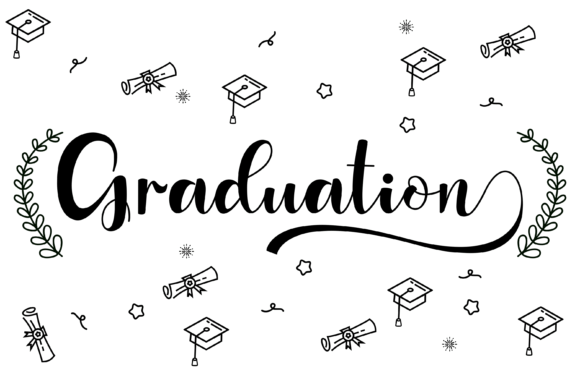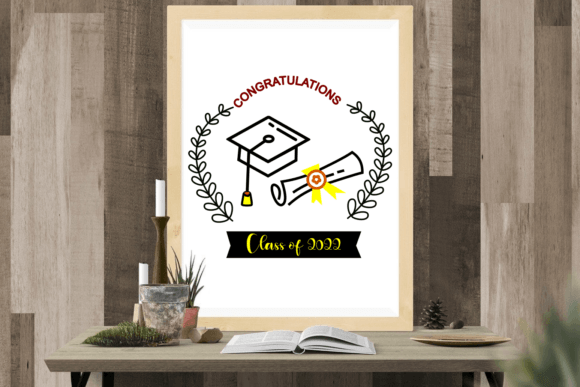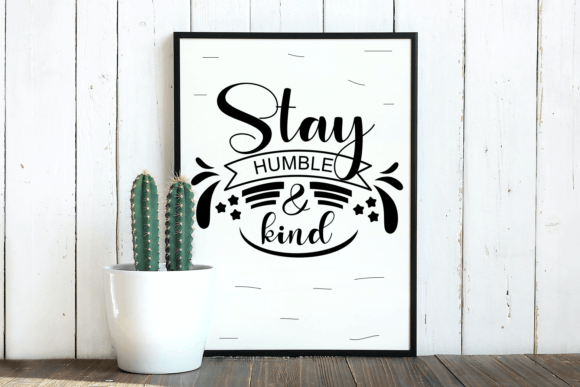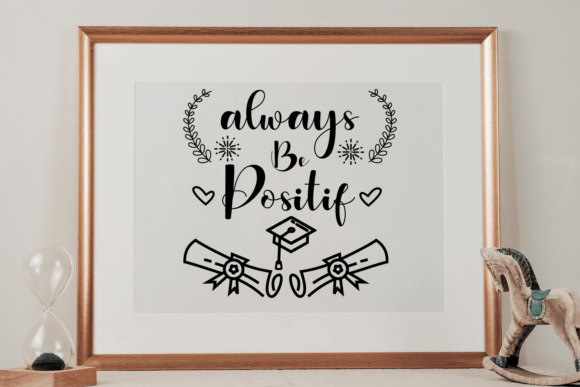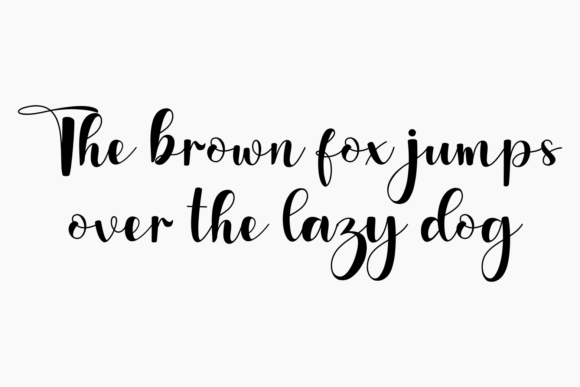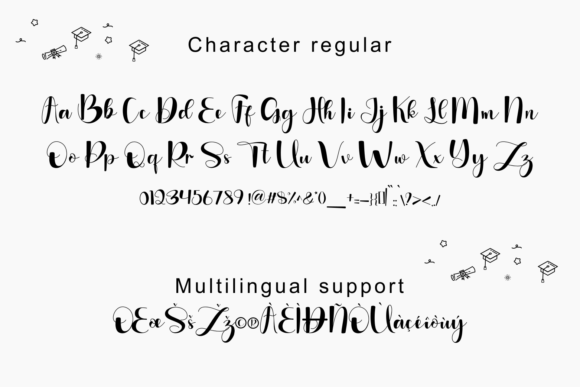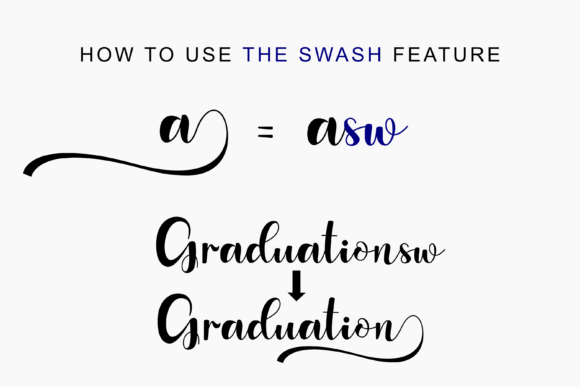
Graduation Font
Graduation is a romantic and sweet calligraphy typeface with characters that dance along the baseline. It will add a luxury spark to any design project that you wish to create! This font is PUA encoded which means you can access all of the amazing glyphs and ligatures or swashes with ease!